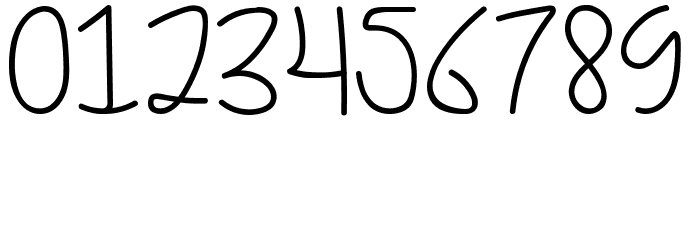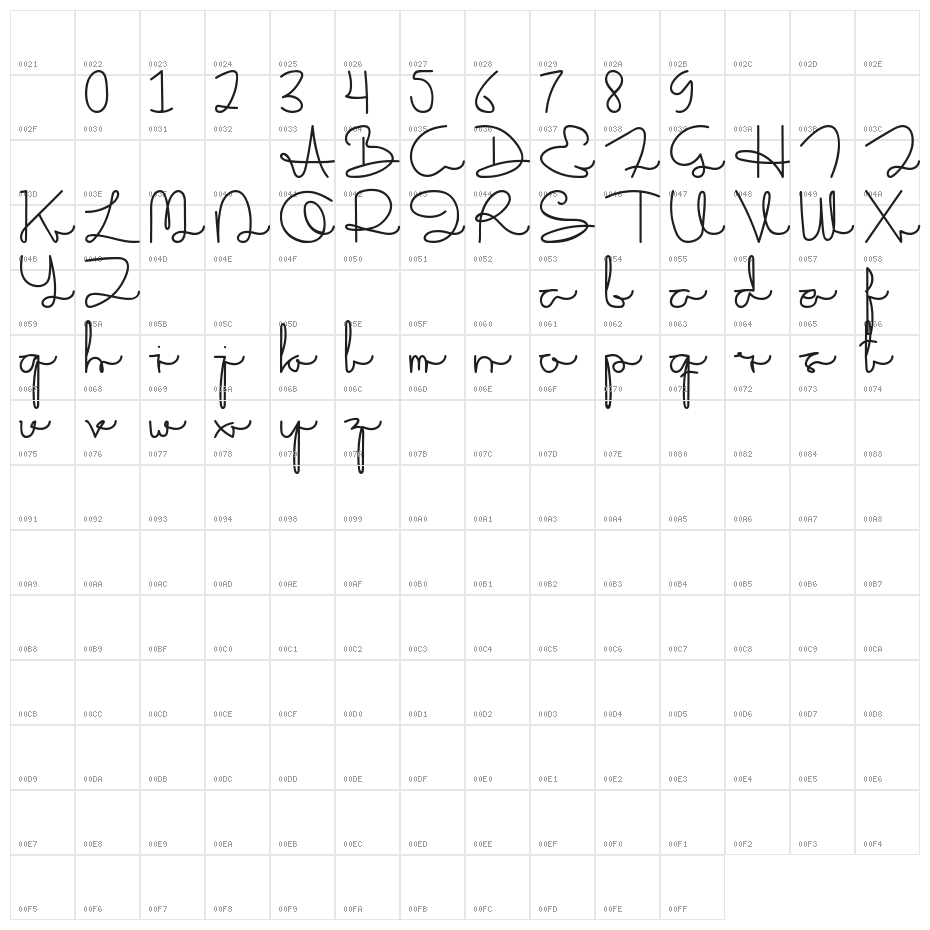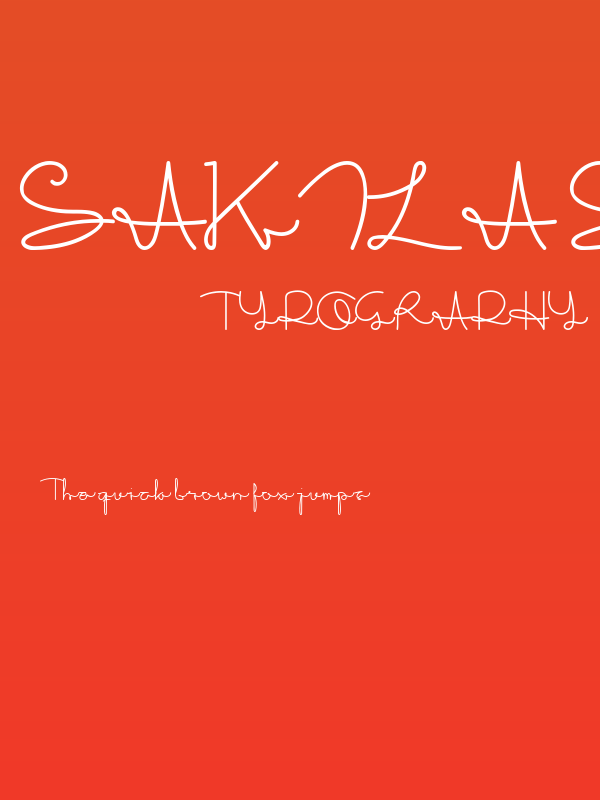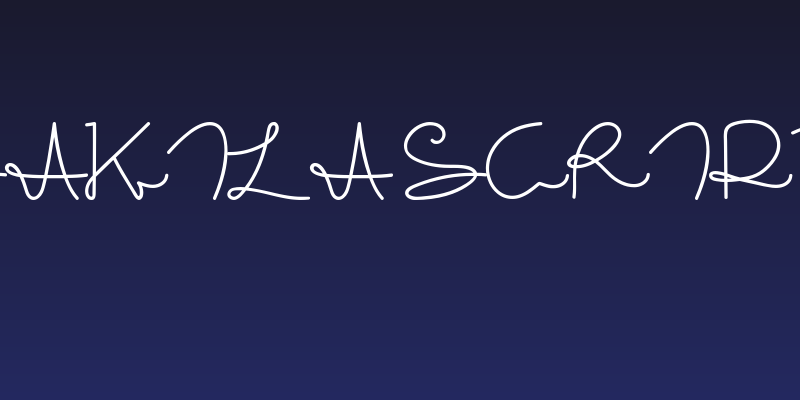
Sakila Script Font
Sakila Script Description
This font features a playful and whimsical script style, characterized by its flowing, interconnected letters. The uppercase letters exhibit a unique blend of loops and curves, giving them a lively appearance. The lowercase letters maintain a consistent flow, enhancing the font's cursive nature. Numbers are bold and slightly rounded, complementing the overall style. The special characters are designed to match the fluidity of the alphabet, ensuring a cohesive look. This font is ideal for projects that require a touch of elegance and creativity, such as invitations, greeting cards, and branding materials.